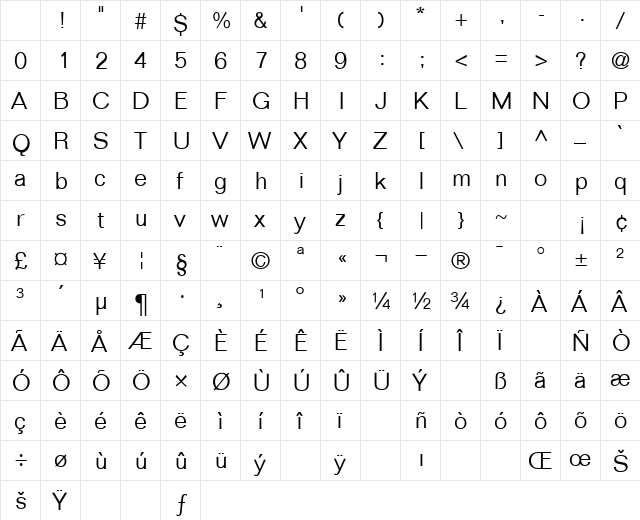
Complete ElenchusLight Normal glyph index. Displaying only characters natively supported by ElenchusLight Normal font.
ElenchusLight is a composed and adaptable typeface that performs quietly and consistently across a wide range of design contexts. Its slender proportions lend an understated elegance to any composition.